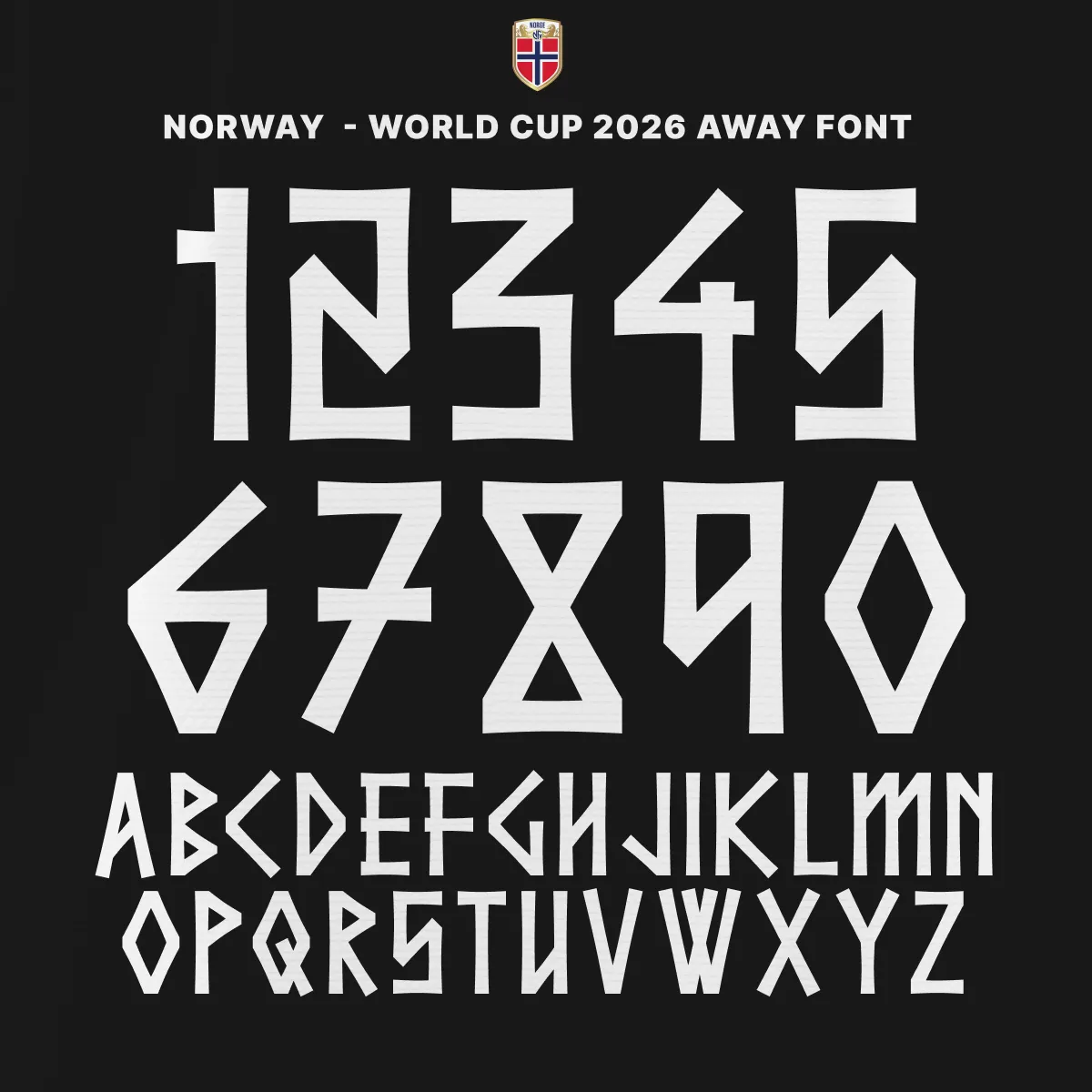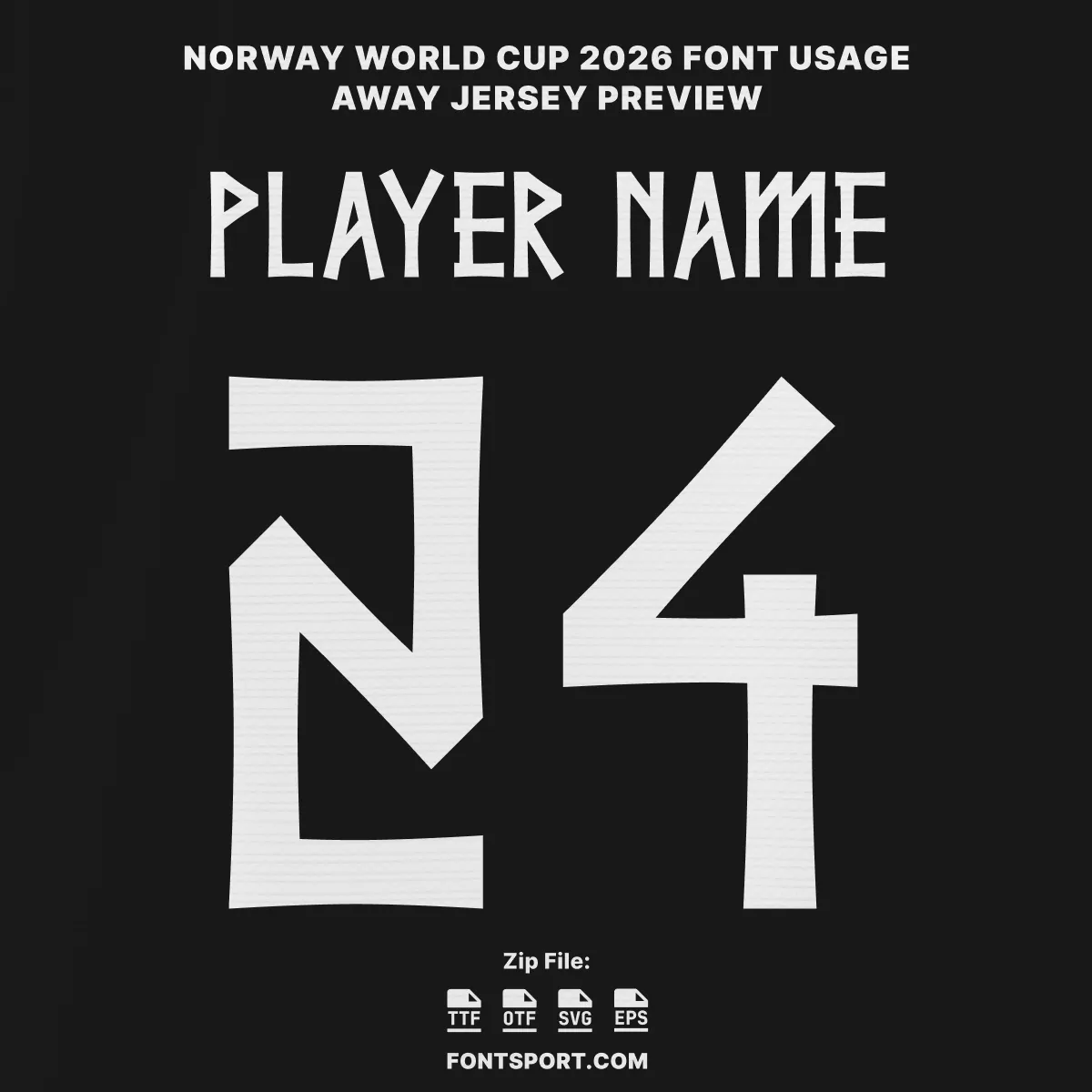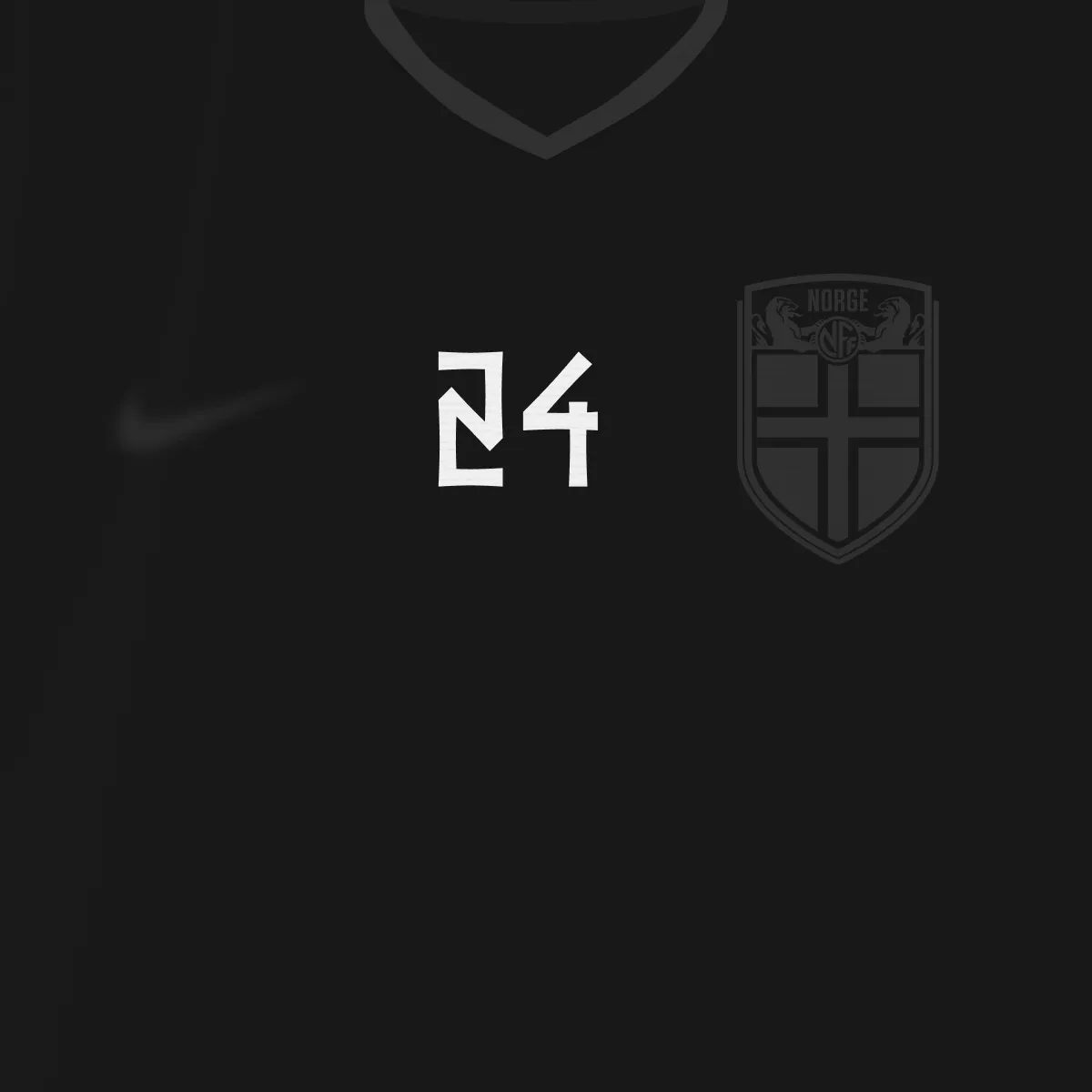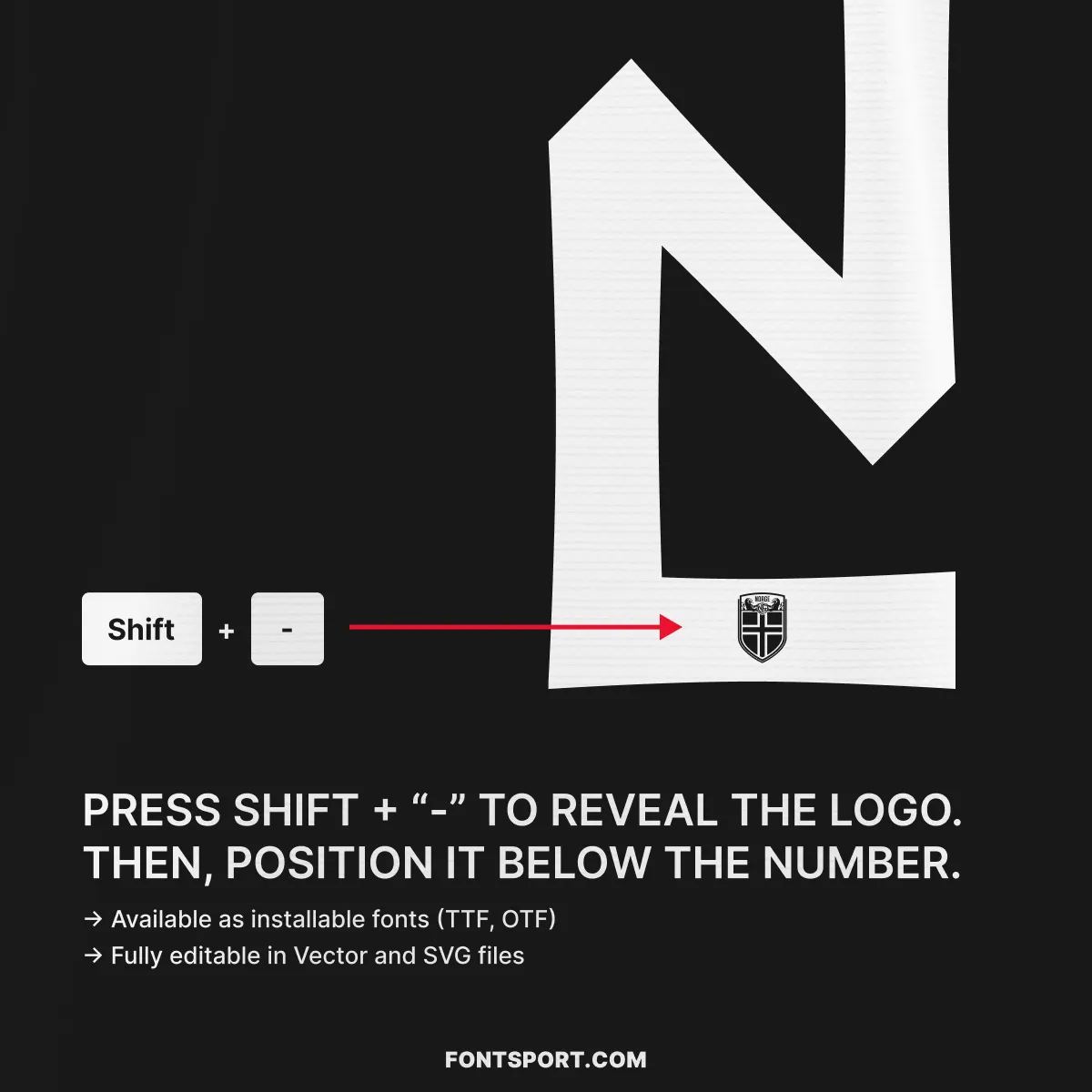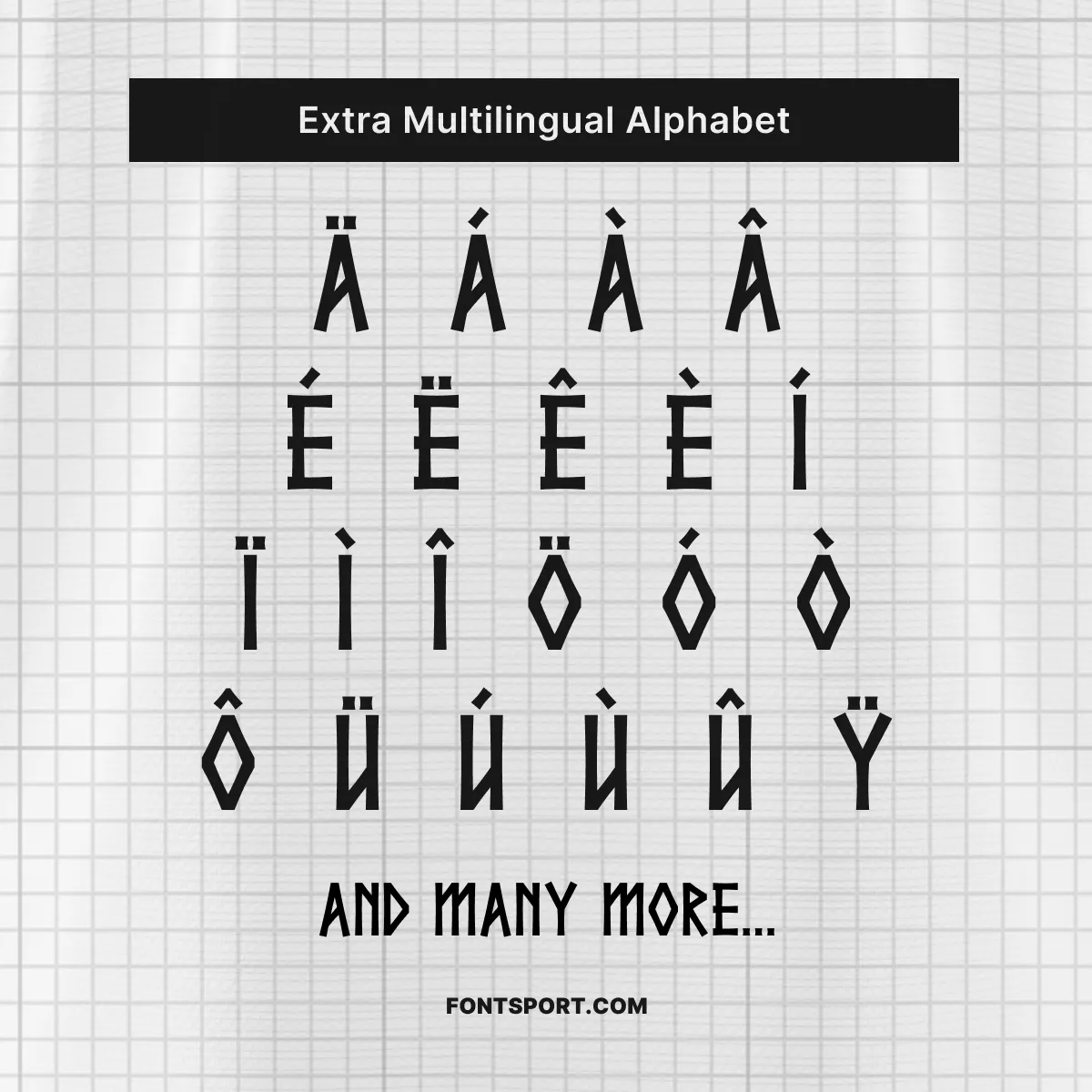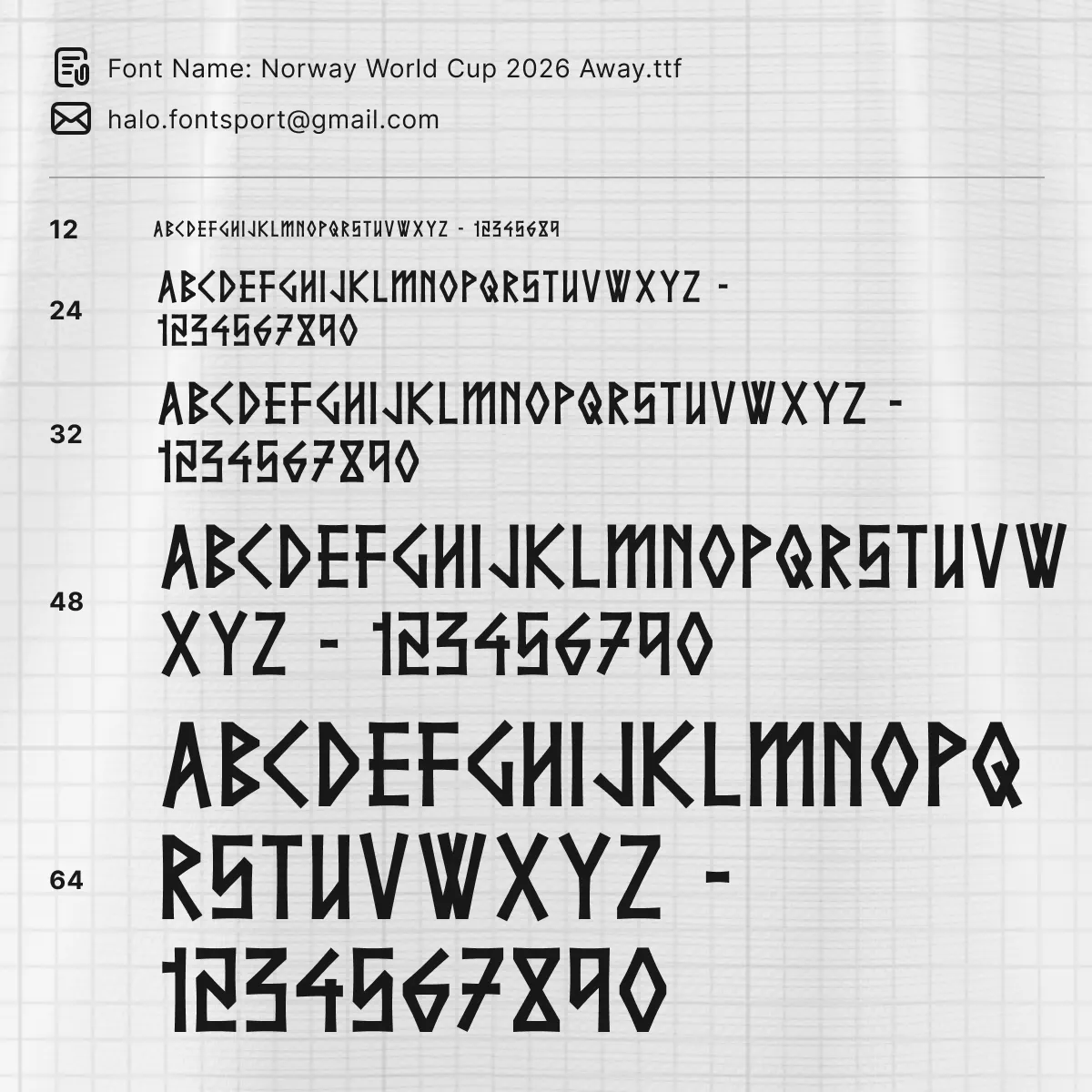
Norway World Cup 2026 Font Kit Away – Authentic FIFA World Cup Typeface
Norway’s blackout away kit for the 2026 FIFA World Cup is one of the most striking alternate jerseys in the tournament. The Norway World Cup 2026 Font Kit Away is a match-accurate recreation of the typeface worn across that all-black shirt — crafted character by character to replicate the angular weight, runic geometry, and Norse-inspired structure of the lettering seen on the pitch. Furthermore, the stark white-on-black presentation of this font makes it one of the most visually powerful typefaces in any national team’s 2026 kit cycle. Every stroke has been studied against the away shirt to ensure the proportions, weight, and spacing hold true across all design applications.
Key Visual Identity of the Font
Typography Style
The Norway 2026 Away font shares its runic DNA with the home variant but takes on a distinctly darker, more aggressive edge against the blackout backdrop. The letterforms are built from angular, geometric strokes rooted in Viking runic heritage. Sharp diagonal cuts, bold upstrokes, and deliberate structural breaks give every character a raw, almost carved quality — as if chiselled from stone rather than drawn on paper. In addition, the contrast between the stark white characters and the black shirt gives this font an intensity that few World Cup typefaces can match.
Number Design
The numerals carry the same uncompromising geometry as the alphabet. Each digit is constructed with deliberate angular tension — the diagonal slice through the 4, the runic loop of the 2, the stepped architecture of the 8. Notably, the figures are engineered for maximum impact at jersey scale, reading clearly from the stands while retaining their intricate character up close.
- ✅ Full uppercase A–Z & numbers 0–9 in Norway’s authentic 2026 Away style
- ✅ Extended multilingual Latin alphabet with full diacritic support (Ä, Å, Ö, É, Û, and many more)